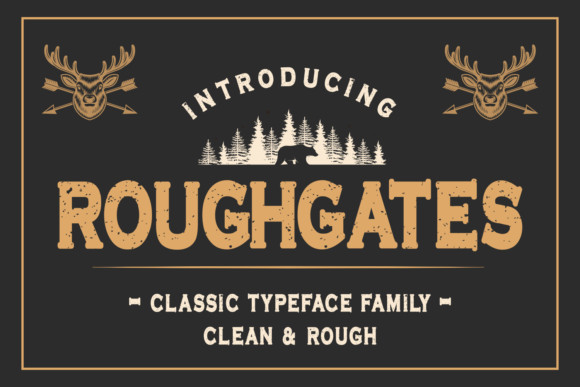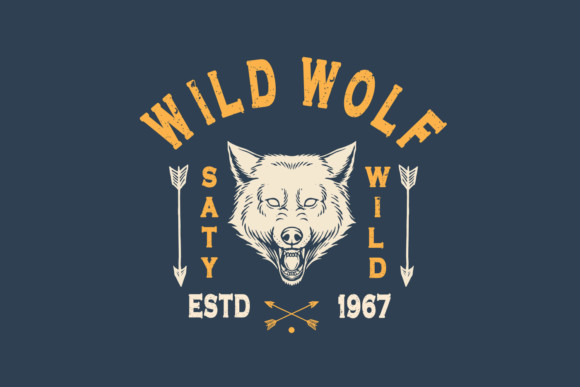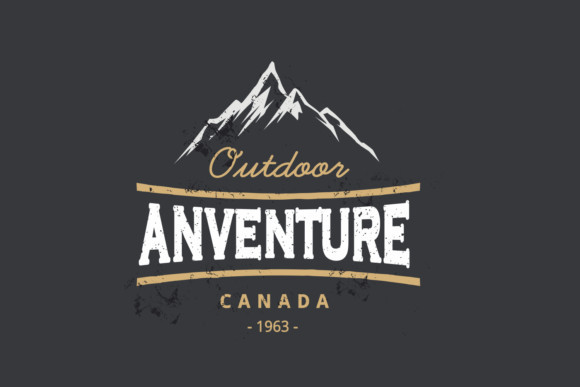
Roughgates Font
Roughgates is a bold and chunky lettered display font. Add this font to your creative ideas and notice how it will make them stand out!